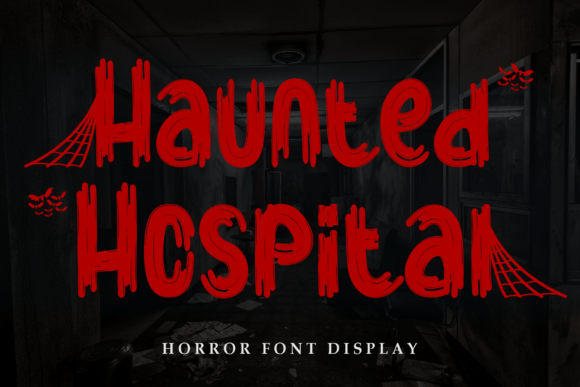
Dive into the realm of the extraordinary with Haunted Hospital - a remarkably distinct display font that will cast a spellbinding enchantment over your creative endeavors! This captivating creation by andikastudio holds the power to transform your artistic visions into breathtaking realities.
Haunted Hospital possesses an aura of mystery and intrigue, with its captivating glyphs meticulously crafted to evoke a sense of eerie elegance. Each letterform dances upon the page like a phantom, beckoning you to explore the depths of your imagination.
With Haunted Hospital as your creative companion, you can conjure otherworldly designs that leave an unforgettable mark. Craft logos that exude an air of sophistication and intrigue, creating a visual feast for the eyes. Weave haunting headlines that draw readers into your captivating stories, leaving them spellbound by your words.
Unleash your inner artist and let Haunted Hospital guide you through a journey of limitless creativity. Dive headfirst into the world of gaming and bring your characters and environments to life with a font that captures the essence of adventure and intrigue. Watch as your creations captivate audiences, leaving them in awe of your storytelling prowess.
But Haunted Hospital's allure extends beyond the digital realm. Unleash your creativity in the world of print, crafting business cards, posters, and flyers that leave a lasting impression. This font has the power to transform ordinary designs into captivating masterpieces, ensuring your message stands out from the mundane.
So, embrace the mystique of Haunted Hospital and witness the transformation of your creative visions into breathtaking realities. Let this font be your guide as you traverse the uncharted territories of imagination, leaving behind a trail of enchantment and wonder.